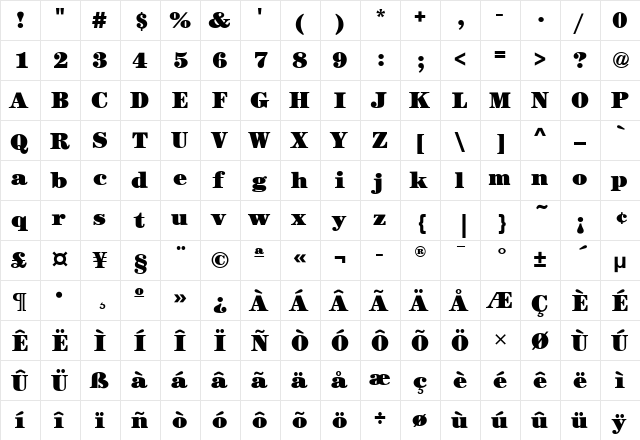
CenturyBookITC Ultra
Design Context for CenturyBookITC Typeface
CenturyBookITC takes a measured approach to typography — its balanced proportions and neutral character make it a reliable workhorse for both digital and print work.